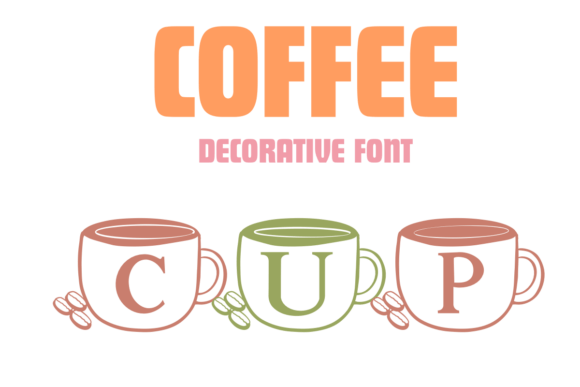
Coffee Cup Font: A Delightful Decorative Font for Creative Projects
Are you a designer, crafter, or DIY enthusiast looking for a unique and creative font to add a personal touch to your projects? Look no further than the Coffee Cup Font! This charming decorative font is perfect for a wide range of applications, from taking notes and writing diaries to creating greeting cards, banners, and social media posts.
What is Coffee Cup Font?
Coffee Cup Font is a beautifully designed decorative font that features a playful and whimsical style. The font is inspired by the casual, handwritten notes we often jot down on coffee cups, making it perfect for adding a personal and creative touch to your designs.
Uses of Coffee Cup Font
Coffee Cup Font is a versatile font that can be used for a variety of creative projects, including:
- Note-taking and journaling: Add a personal touch to your notes and diary entries with this delightful font.
- Greeting cards and invitations: Create beautiful and unique greeting cards, invitations, and party decor with Coffee Cup Font.
- Banners and signs: Use this font to create eye-catching banners, signs, and posters for special events or promotions.
- Mugs and ceramics: Add a personal touch to your mugs, ceramics, and other kitchenware with this charming font.
- Cards and gift tags: Create beautiful and unique cards, gift tags, and wrapping paper with Coffee Cup Font.
- Shirts and apparel: Use this font to create custom t-shirts, hoodies, and other apparel with a personal touch.
- Stationery and paper crafts: Add a touch of elegance and whimsy to your stationery, paper crafts, and journal pages.
- Social media posts: Use Coffee Cup Font to create engaging and eye-catching social media posts, quotes, and graphics.
Why Choose Coffee Cup Font?
Coffee Cup Font offers a range of benefits that make it a popular choice among designers and crafters. Here are just a few reasons why:
- Unique and creative: This font offers a fresh and unique style that will add a personal touch to your designs.
- Easy to read: Despite its decorative style, Coffee Cup Font is easy to read and understand, making it perfect for a wide range of applications.
- Versatile: This font can be used for a variety of creative projects, from digital designs to handmade crafts.
- High-quality: Coffee Cup Font is a high-quality font that is designed to produce crisp and clear results, even at small sizes.
Tips for Using Coffee Cup Font
Here are a few tips for getting the most out of Coffee Cup Font:
- Experiment with colors: Try pairing Coffee Cup Font with different colors and textures to add depth and interest to your designs.
- Mix and match: Combine Coffee Cup Font with other fonts and styles to create unique and eye-catching designs.
- Pay attention to size: Make sure to adjust the font size to suit your design needs, as Coffee Cup Font can be used for both large and small projects.
Coffee Cup Font is a delightful decorative font that offers a range of creative possibilities for designers, crafters, and DIY enthusiasts. With its playful and whimsical style, this font is perfect for adding a personal touch to a wide range of projects, from note-taking and journaling to creating greeting cards, banners, and social media posts. Whether you’re a seasoned designer or a crafty beginner, Coffee Cup Font is sure to inspire your creativity and take your designs to the next level.